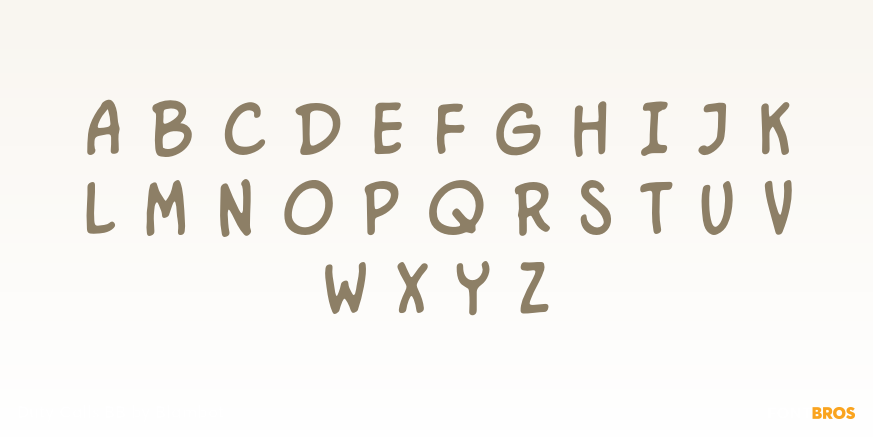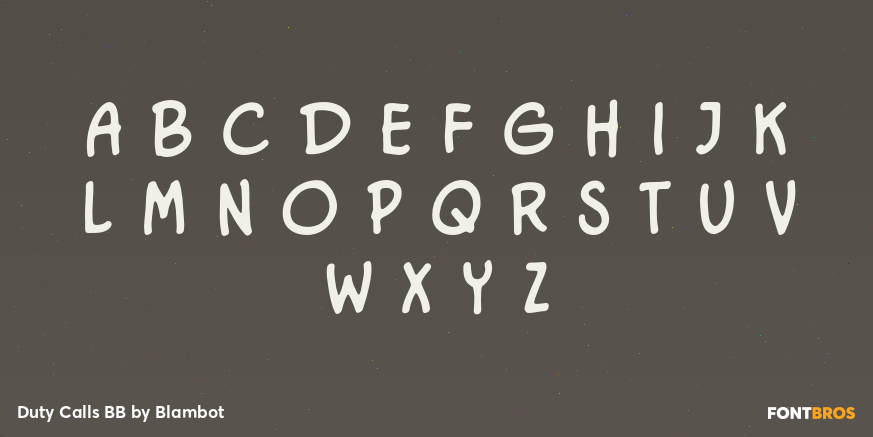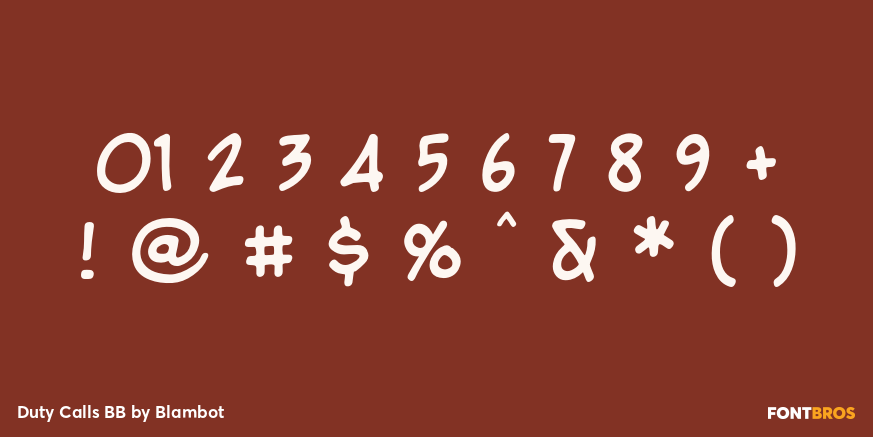
Duty Calls BB
Font Family by Blambot
Buy NowA classic, rapidograph-styled comic book dialogue font with a flair for the heroic!
Includes regular, italic and bold, with a super-powered complement of European characters!